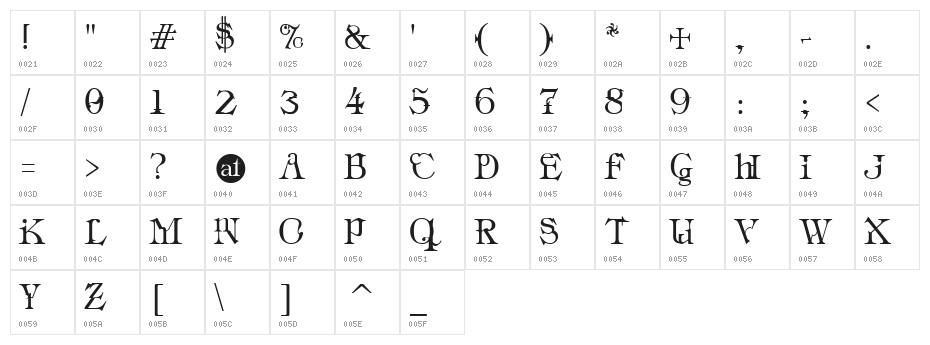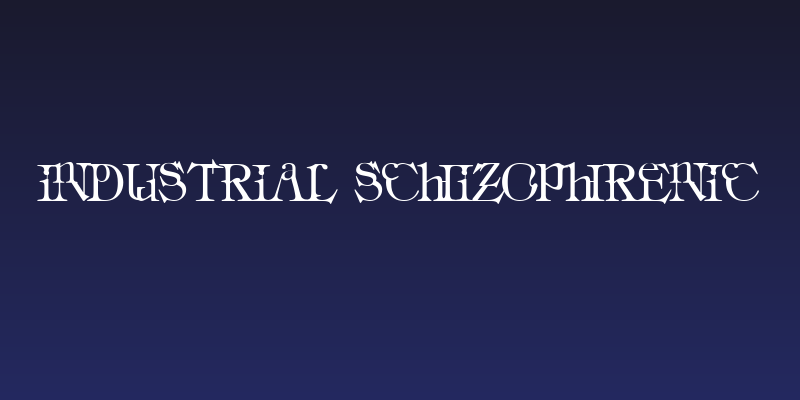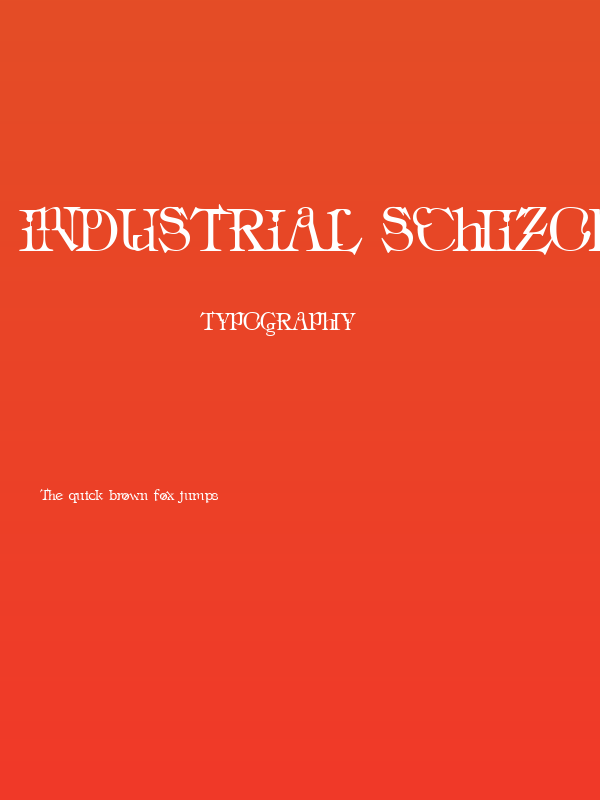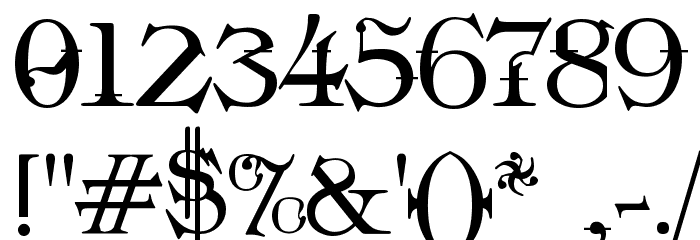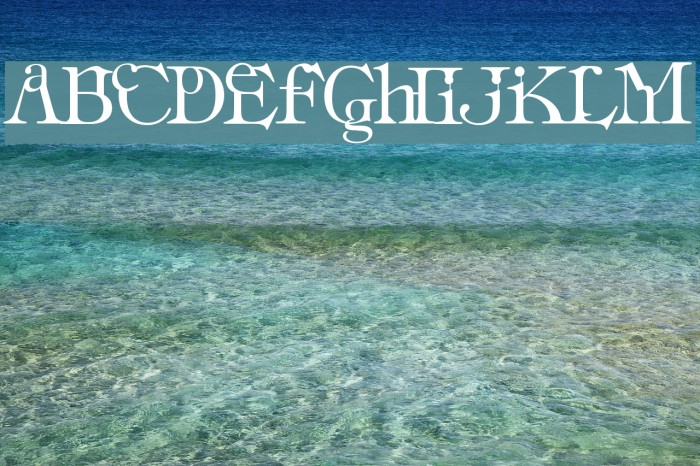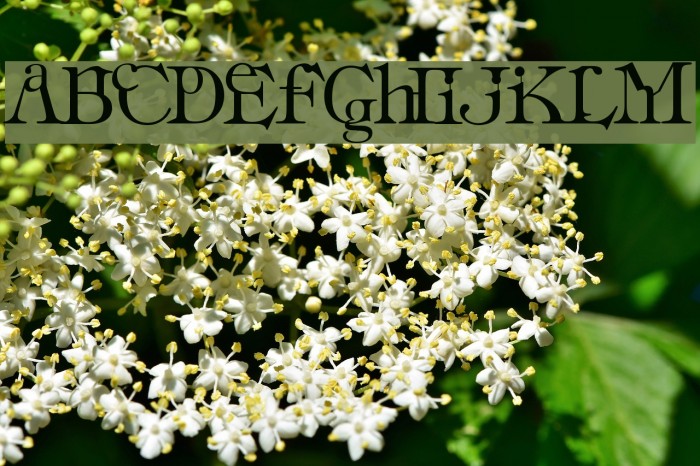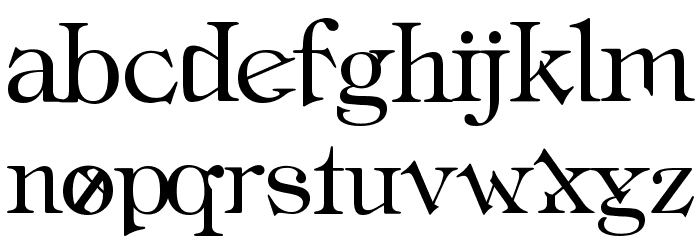
Industrial Schizophrenic Font
Industrial Schizophrenic Description
This font features a unique blend of industrial and gothic elements, characterized by sharp, angular serifs and a bold, dramatic presence. The uppercase letters exhibit a strong, authoritative style with exaggerated serifs and varying stroke widths, creating a sense of movement and intensity. The lowercase letters maintain a consistent aesthetic, with distinct curves and sharp edges that enhance the font's dynamic appearance. Numbers and special characters follow the same design principles, ensuring a cohesive look across all glyphs. The font's intricate details and bold style make it suitable for projects that require a striking and memorable visual impact.
| Overall Style | Industrial, Gothic |
| Proposed Projects | Ideal for branding, poster design, album covers, and any project requiring a bold, impactful typeface. |